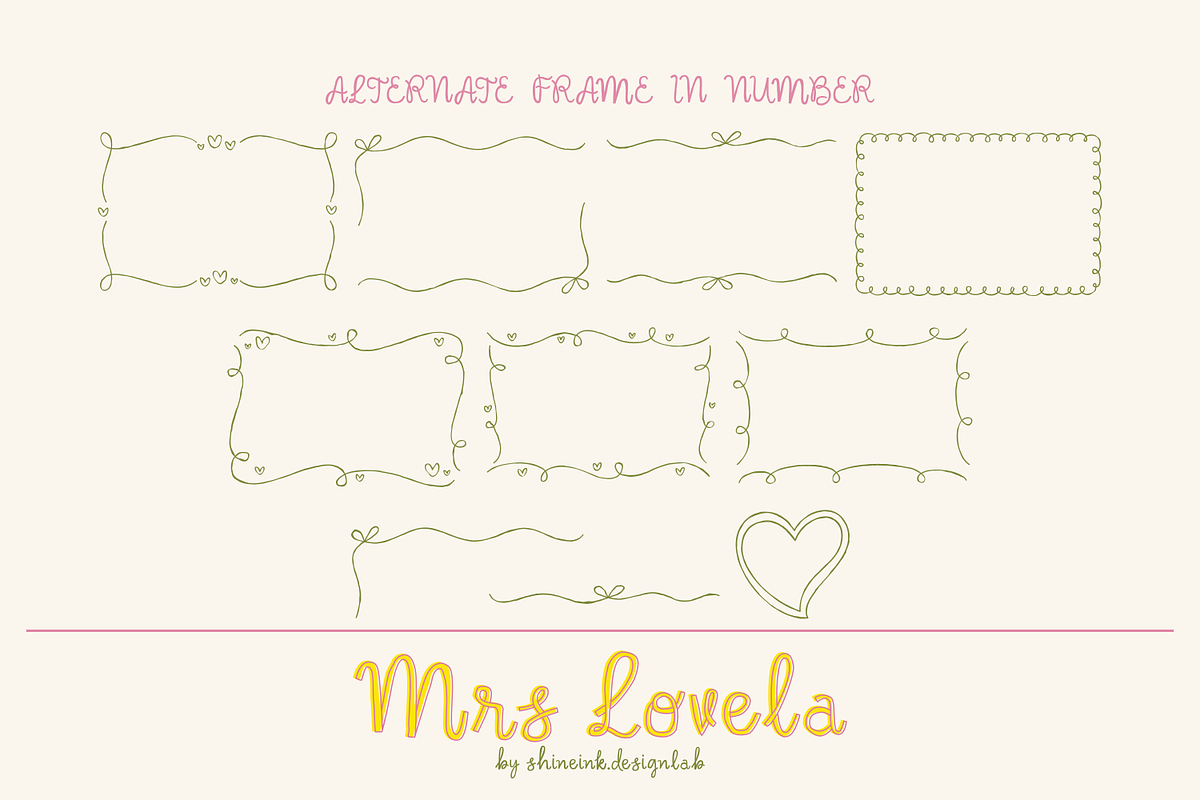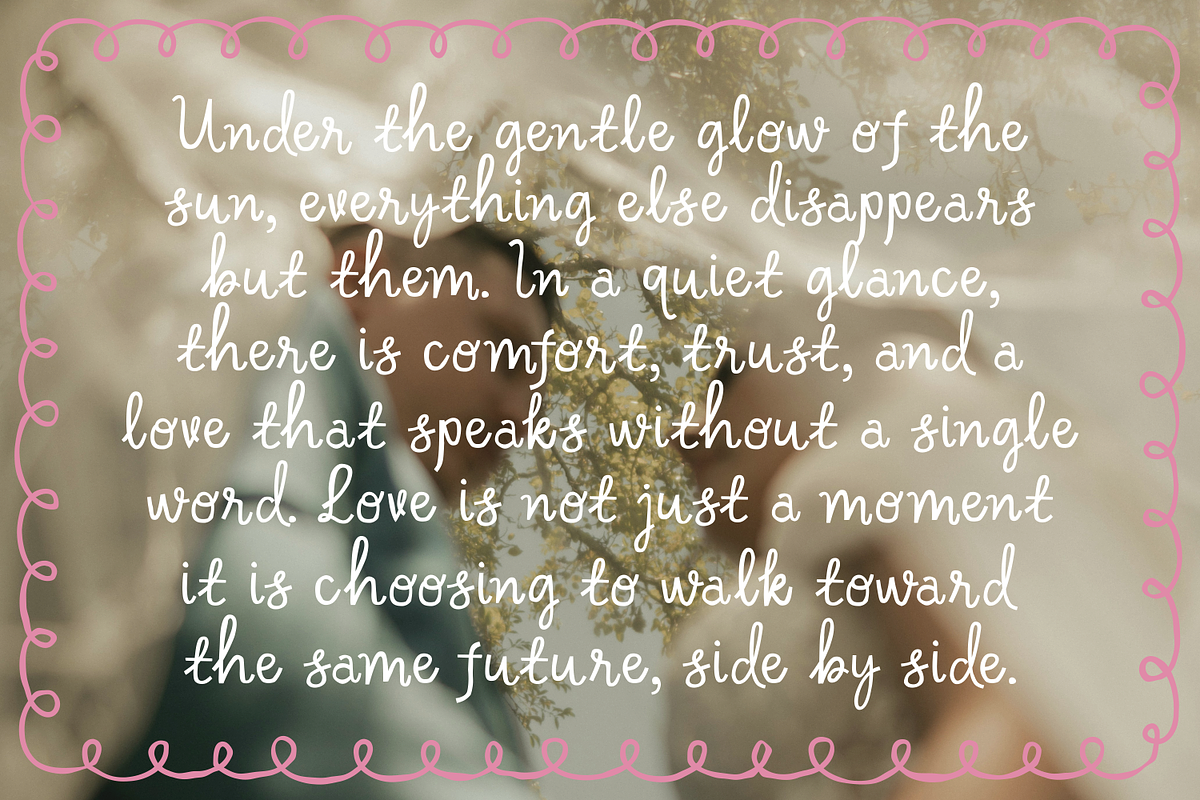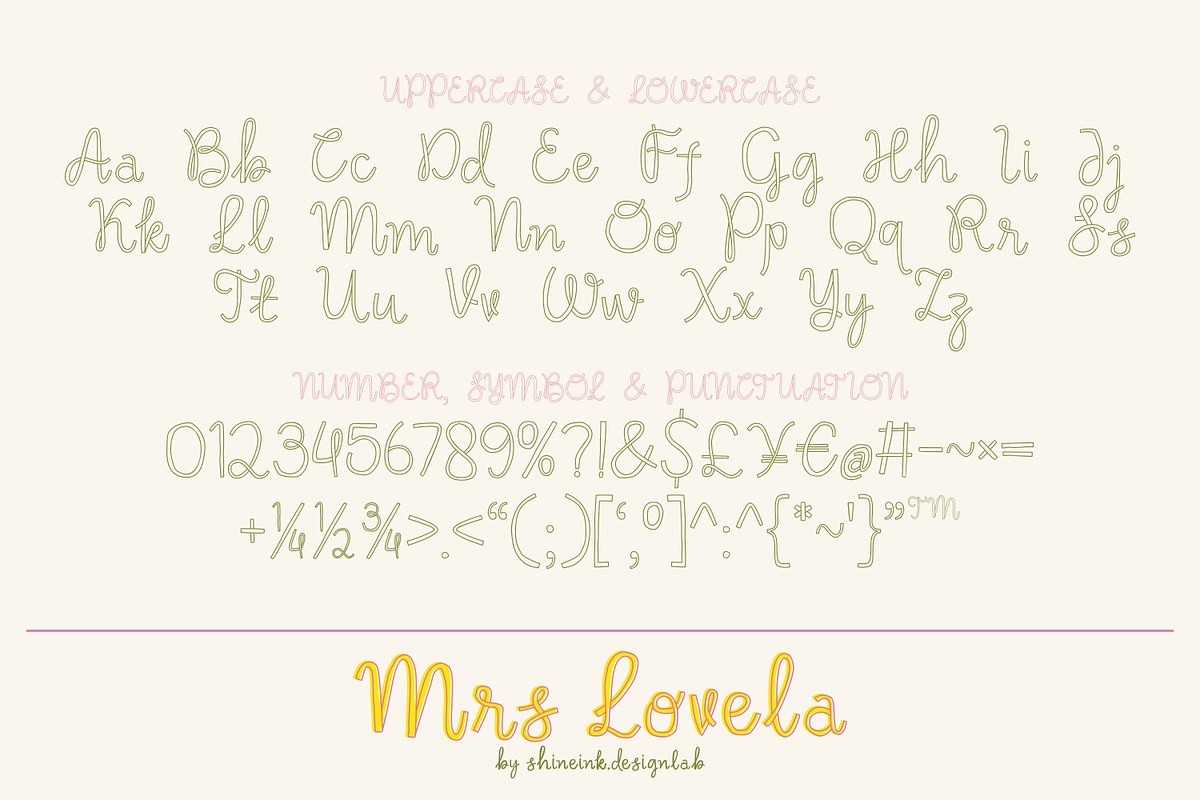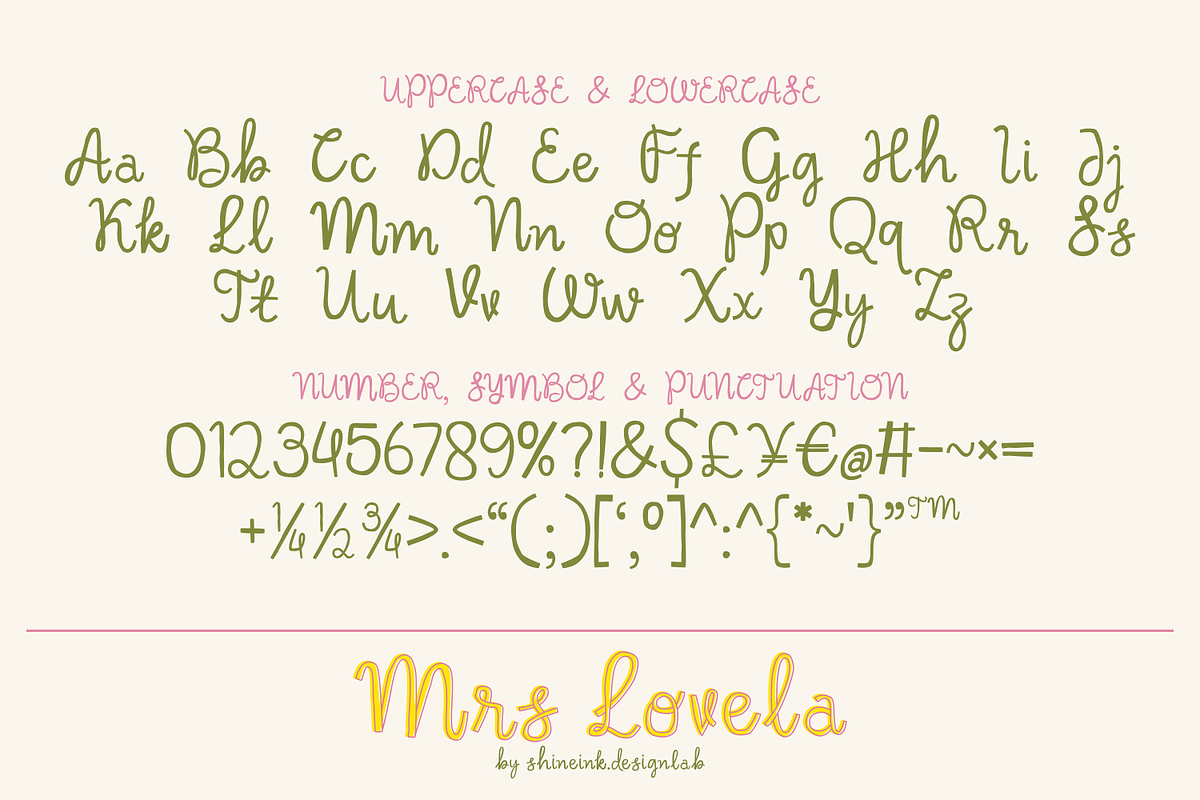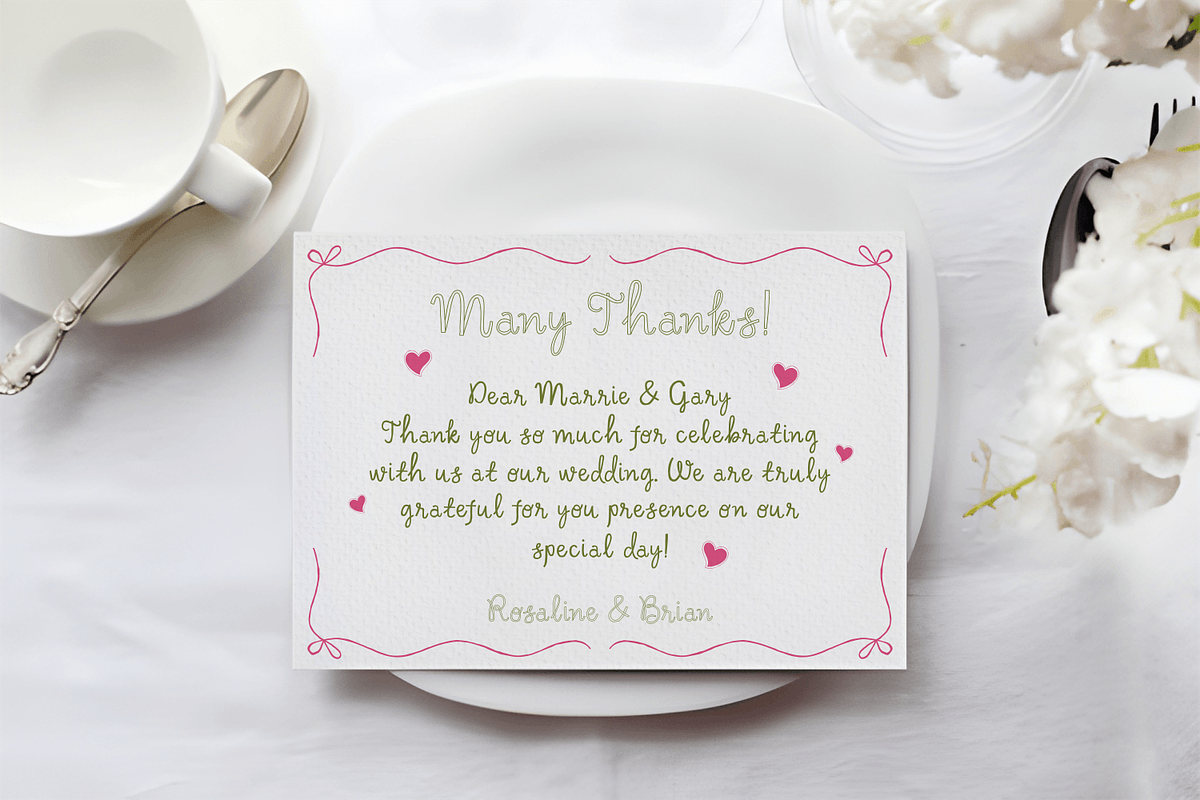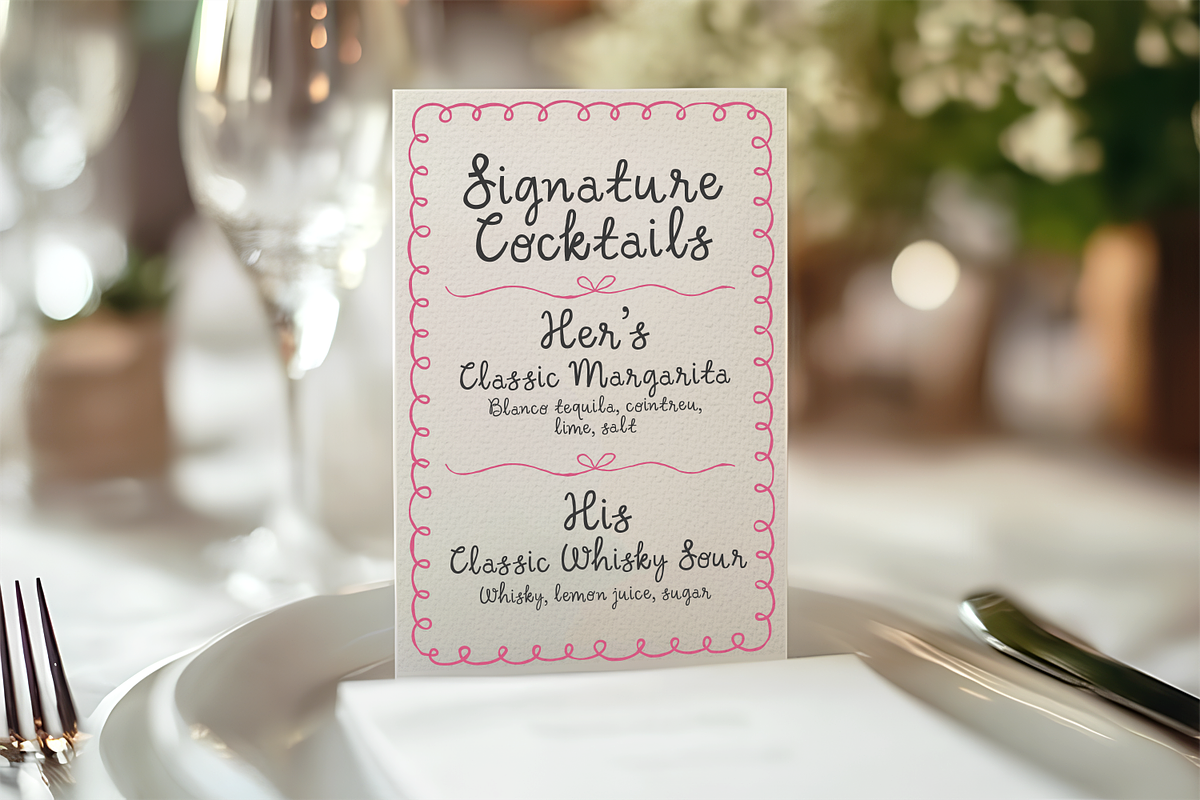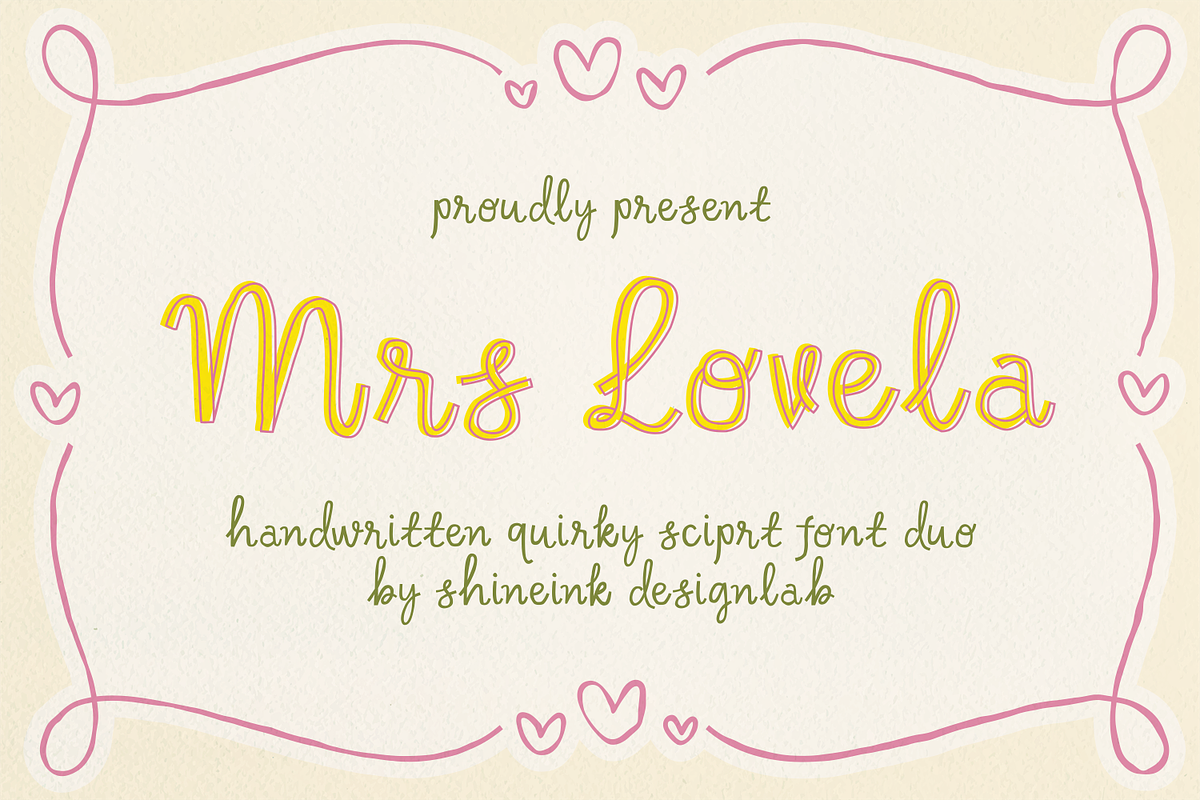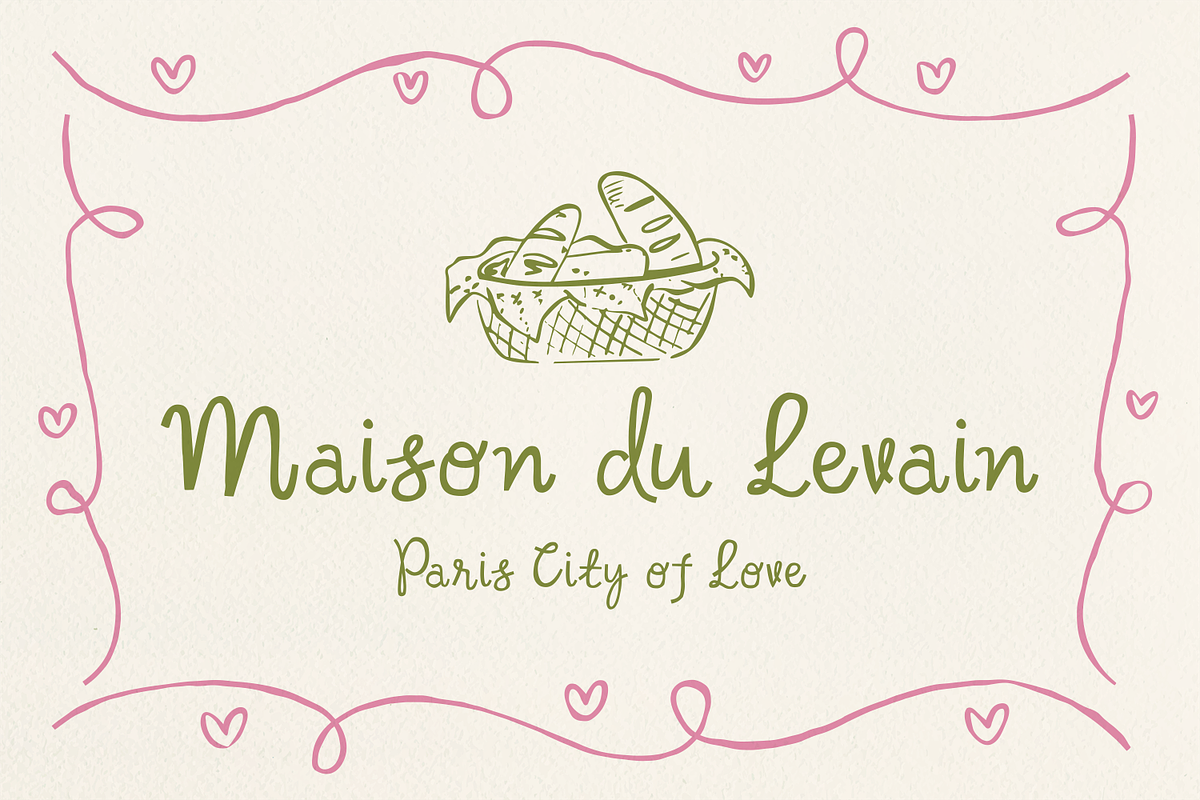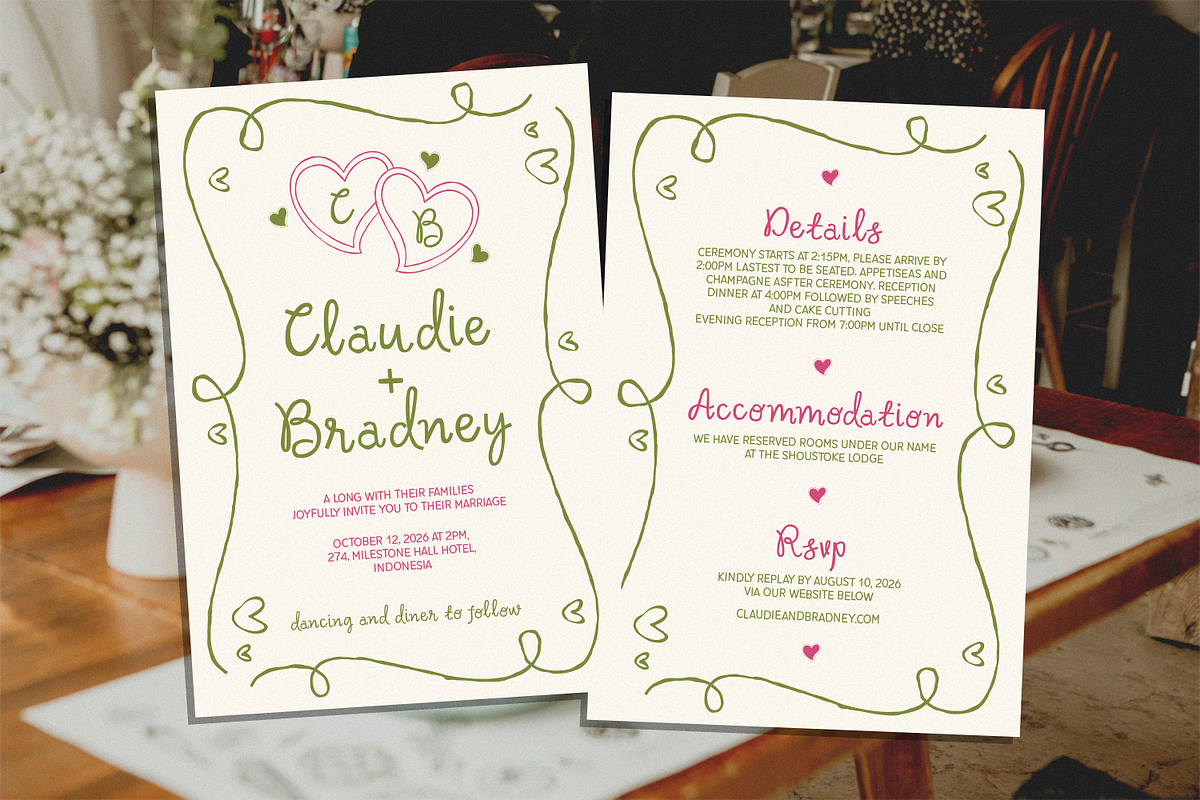
Mrs Lovela – Handwritten Font Duo
I'm present to you, Handwritten Quirky Script Font Duo, called Mrs Lovela!
Mrs Lovela is a sweet and playful handwritten script font duo designed to bring warmth, charm, and personality into your creative projects. With its soft curves, bouncy baseline, and whimsical strokes, this font feels natural, joyful, and full of love.
Carefully crafted to look effortlessly handwritten, Mrs Lovela blends a quirky script style with a friendly companion font, making it perfect for creating eye-catching typography combinations. Whether you're designing for branding, packaging, social media, or printable products, this font duo adds a heartfelt and feminine touch.
Its smooth flow and charming letterforms make it ideal for projects that need a cozy, romantic, and handmade feel.
- Lowercase and Uppercase
- 2 Style Font : REGULAR, OUTLINE